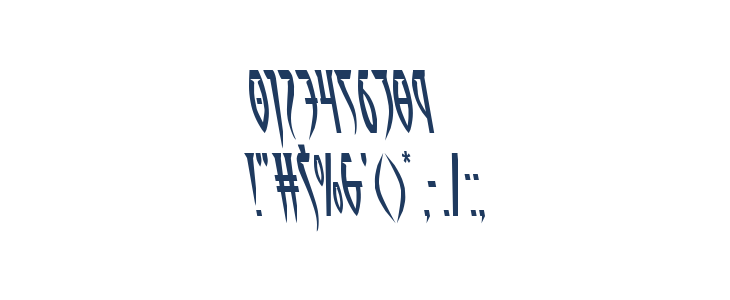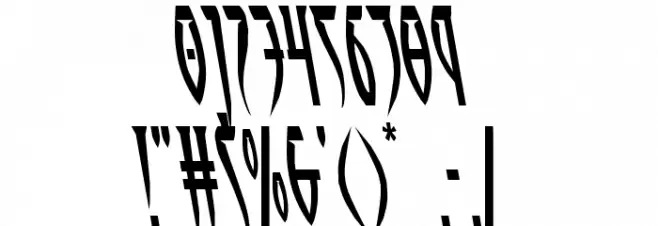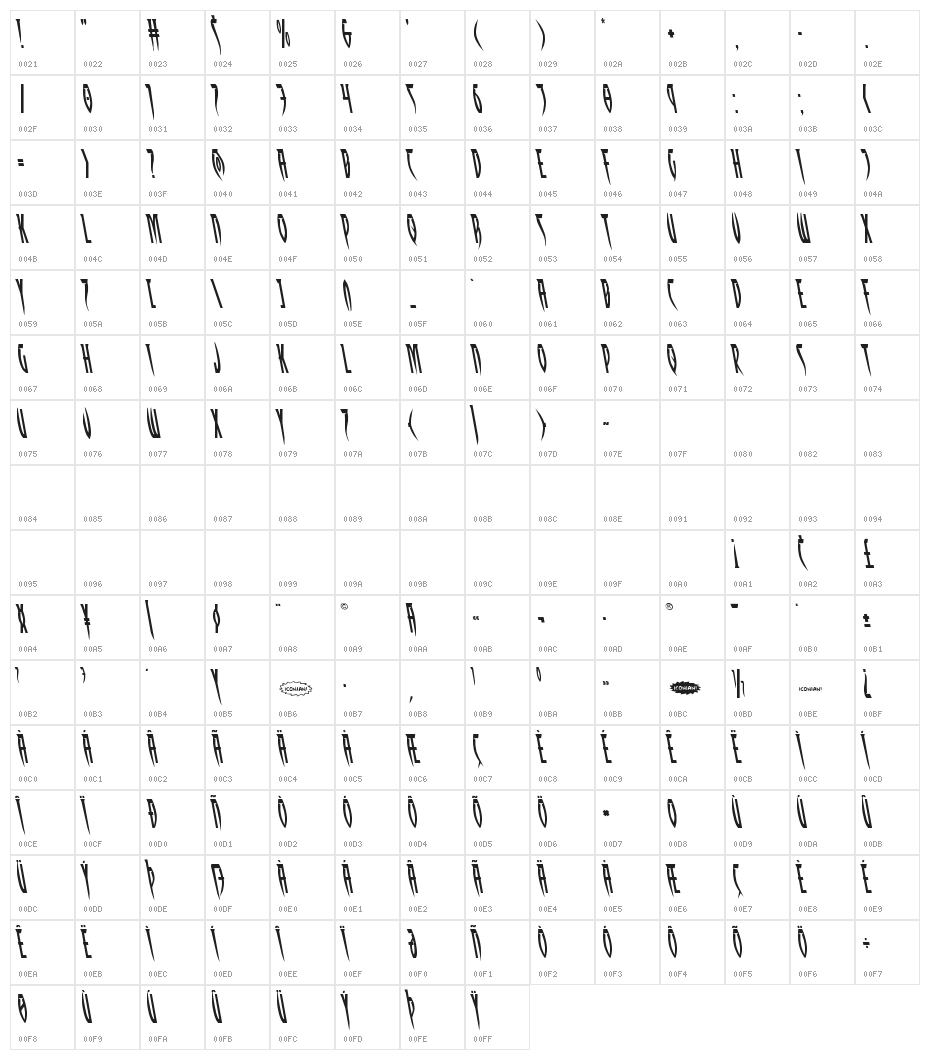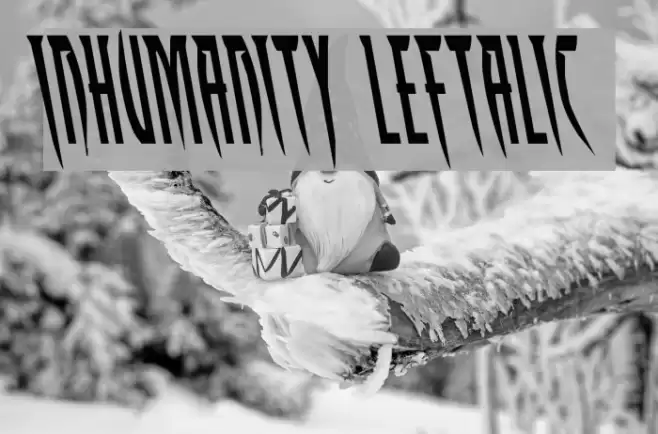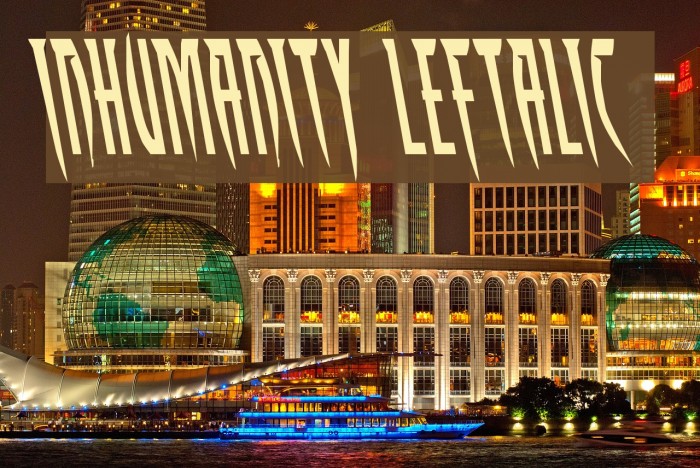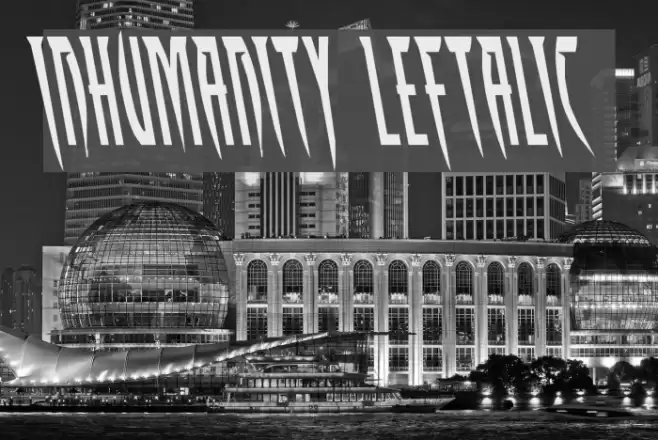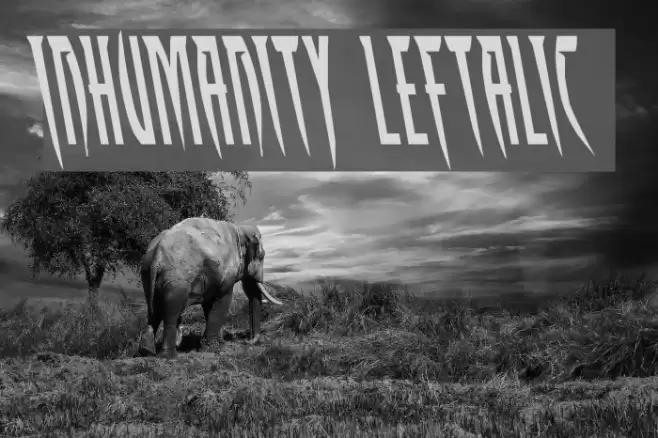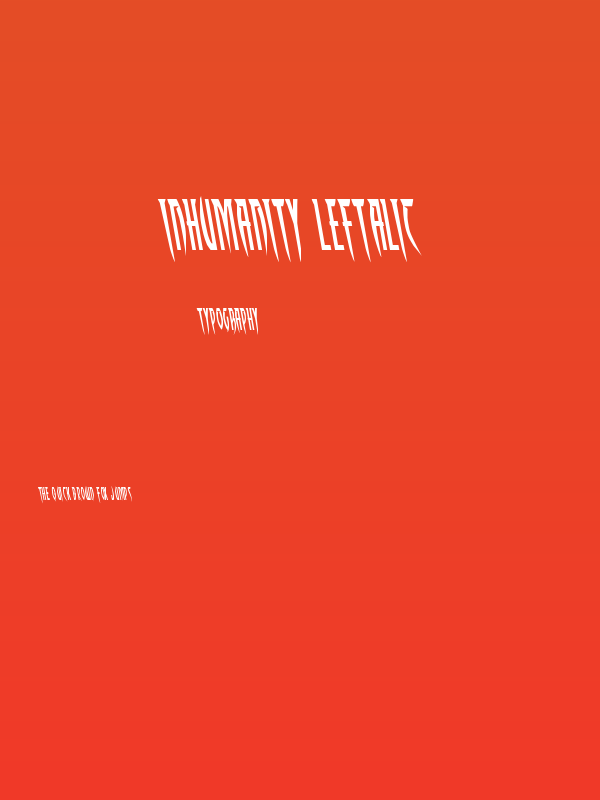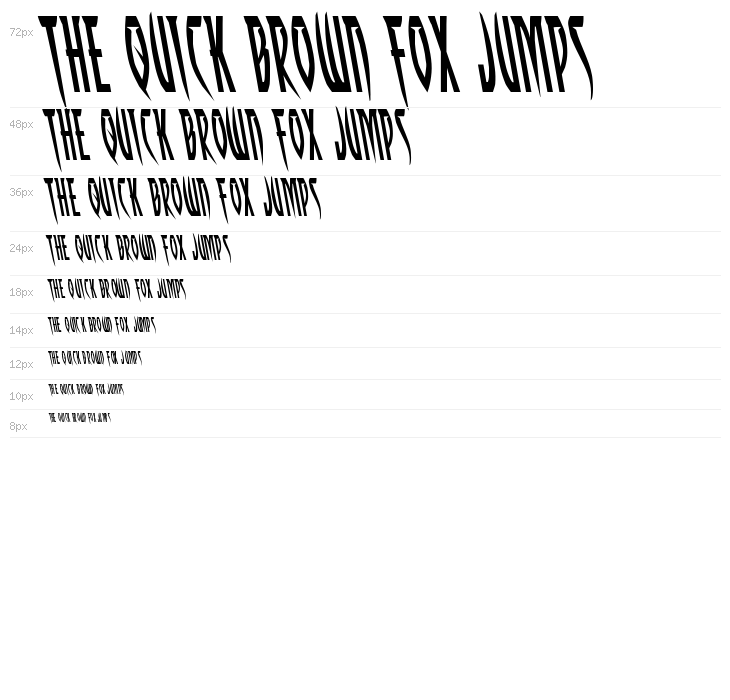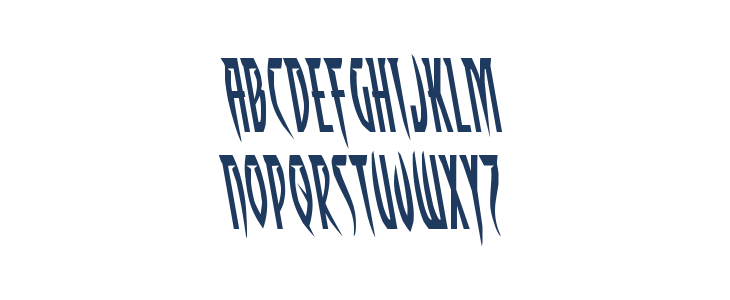
Inhumanity Leftalic Font
Inhumanity Leftalic Description
This font features a striking, angular design with a distinct leftward slant, giving it a dynamic and edgy appearance. The characters are elongated and narrow, creating a sense of movement and urgency. The sharp, pointed serifs and exaggerated vertical strokes contribute to its aggressive and bold style. This font is highly decorative, making it ideal for attention-grabbing headlines or artistic projects. The unique character shapes and tight spacing enhance its dramatic effect, while the consistent stroke width maintains a cohesive look across all characters.
| Proposed Projects | Ideal for posters, album covers, video game titles, and any project requiring a bold, dynamic aesthetic. |